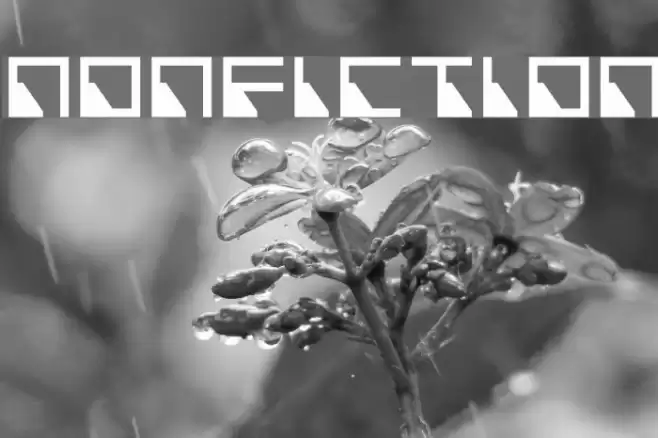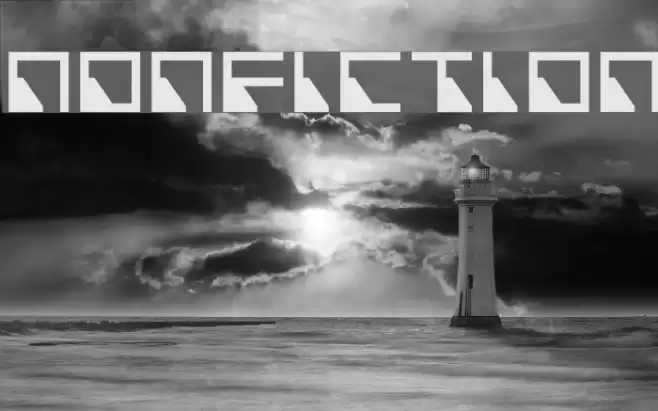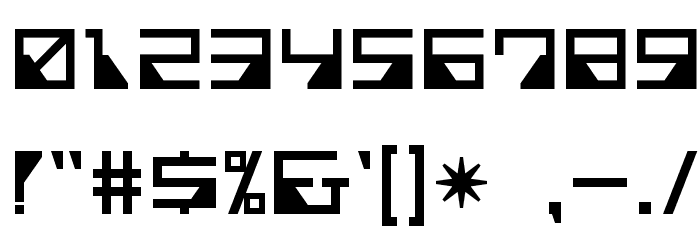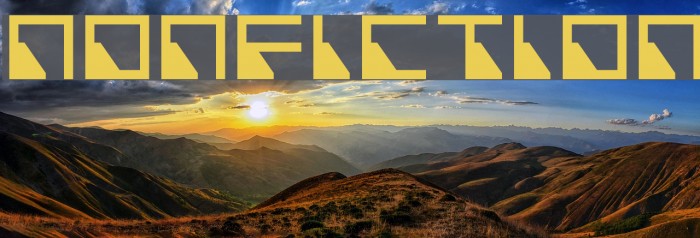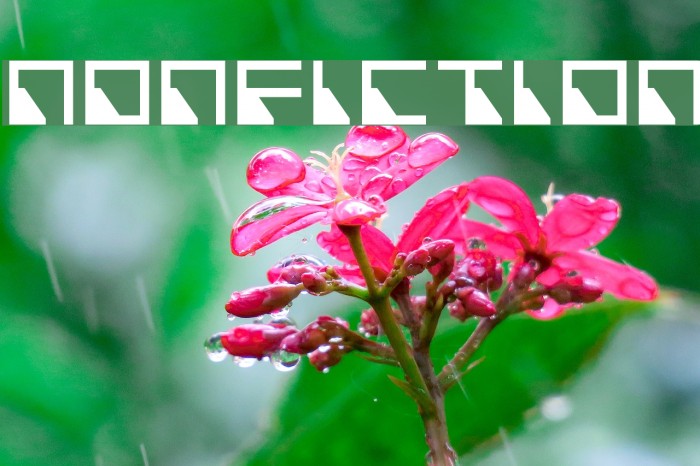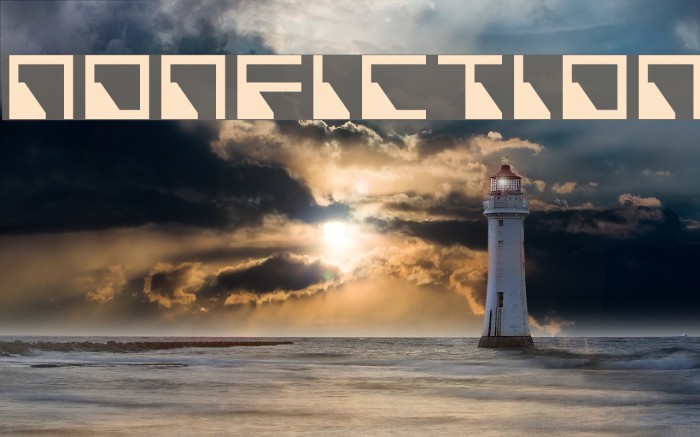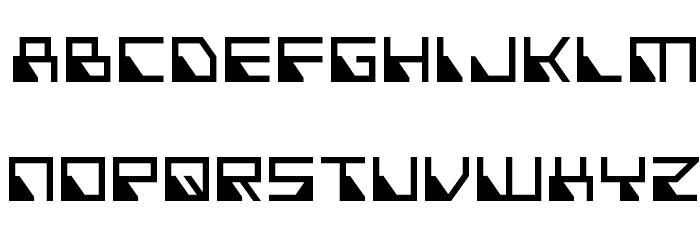
Nonfiction Font
Nonfiction Description
This font features a bold, geometric design with sharp angles and a futuristic aesthetic. Each character is constructed with a series of straight lines and angular cuts, creating a sense of movement and modernity. The uppercase and lowercase letters maintain a consistent style, with the lowercase letters being slightly more compact. Numbers and special characters follow the same design principles, ensuring uniformity across all glyphs. The font's unique style makes it stand out, making it ideal for attention-grabbing designs.
A bold, geometric font with a futuristic and angular design from Decorative fonts.
- Proposed Projects: Ideal for sci-fi themed projects, technology branding, video game titles, and modern posters.
- Overall Style: Futuristic